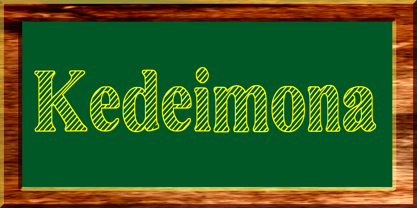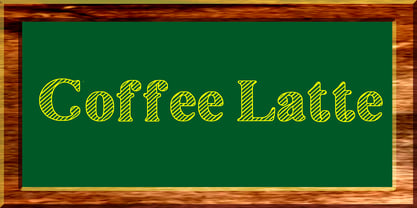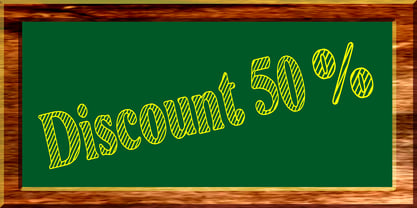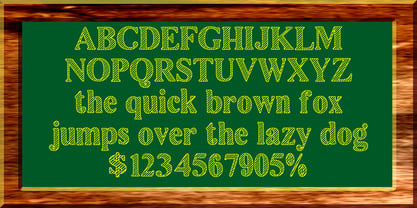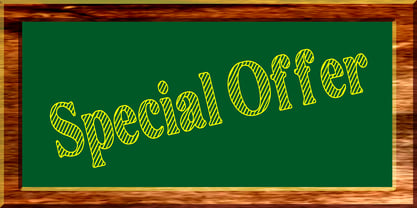
Kedeimona
by Beewest Studio
The Kedeimona Font Family was designed by bsmbang wisudyantoro and published by Beewest Studio. Kedeimona contains 1 styles. More about this family
This typeface draws inspiration from the charming and rustic look of cafe and restaurant chalkboards, evoking a cozy and inviting atmosphere. With its handwritten style and organic flow, the font captures the essence of those handwritten menus often seen in casual dining establishments. It gives off a warm, approachable feel, making it perfect for various creative projects.
Ideal for restaurant menus, this typeface is designed to create an inviting, down-to-earth vibe that fits perfectly in food-related designs. Whether you're creating a modern bistro menu or a vintage-style cafe display, this font enhances the look with its playful, yet legible style. Its versatility can easily accommodate different types of food and drink branding.
Beyond restaurant and cafe settings, this font is also fantastic for apparel designs, especially t-shirts, where its fun and friendly character can shine. Whether you're creating designs for food festivals, cafes, or casual merchandise, this typeface adds a unique touch that speaks directly to the audience. With its versatility and stylish charm, it's an ideal choice for various creative projects in the food and fashion industries.
Designers: bsmbang wisudyantoro
Foundry: Beewest Studio